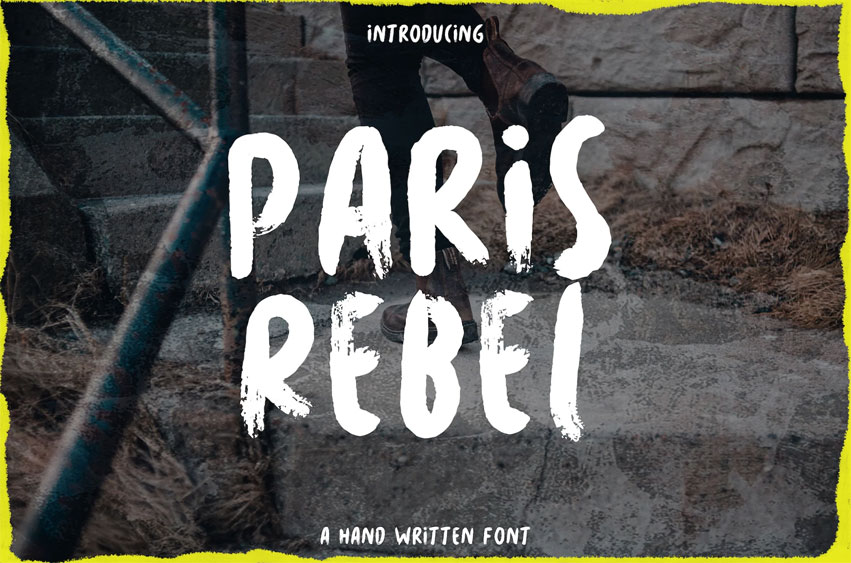
Paris Rebel Font
Paris Rebel Font is a youthful and playful typeface with an organic, brush-like appearance. This eye-catching font is perfect for medium- and large-sized displays and is suitable for smaller paragraphs.
• All caps font with lower-case alternative
• Use uppercase (caps) for standard characters and lowercase for alternative, and combine them to create an awesome look!
• Complete standard display characters including:  À Ä Å Ã Æ Ç É Ê È Ë Í Î Ì Ï Ñ Ó Ô Ò Ö Õ Ø Œ Š Ú Û Ù Ü Ý Ÿ